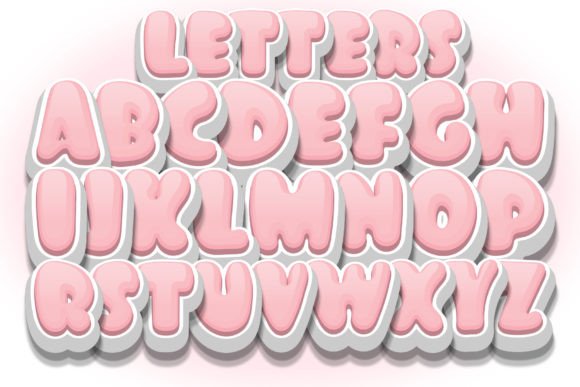
Super Kids Font
Super Kids font is a delightful baby bubble color font, featuring a cute pink hue, perfect for kids’ projects and children’s activities. Its playful design adds a fun and whimsical touch to any creative endeavor.